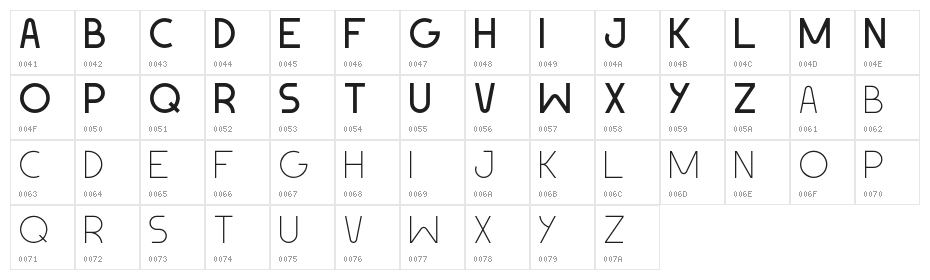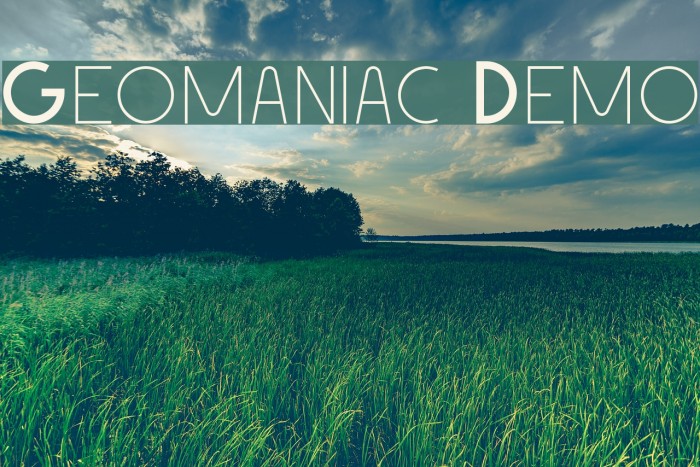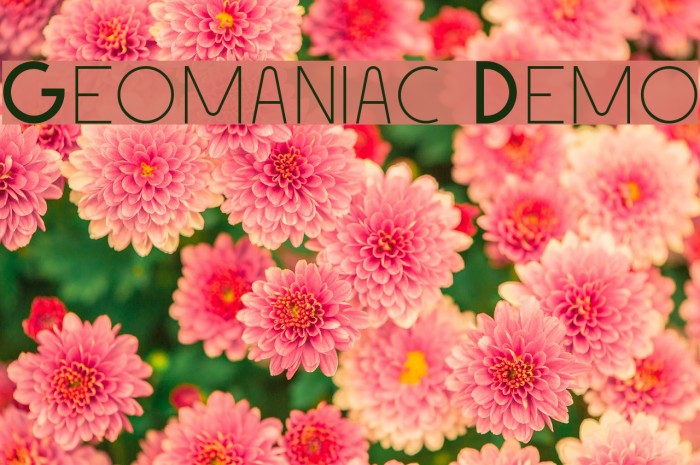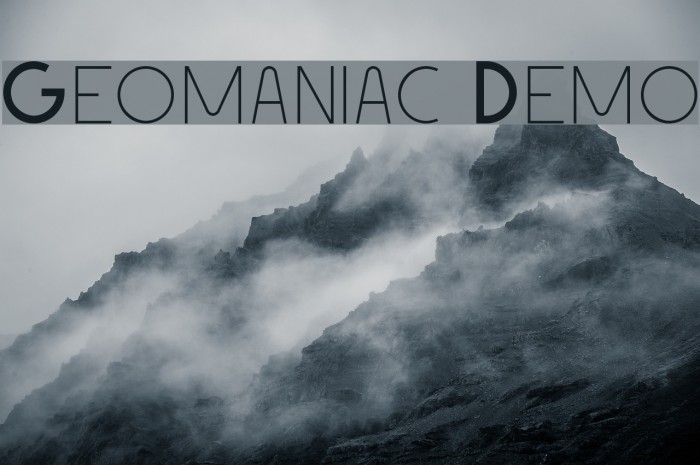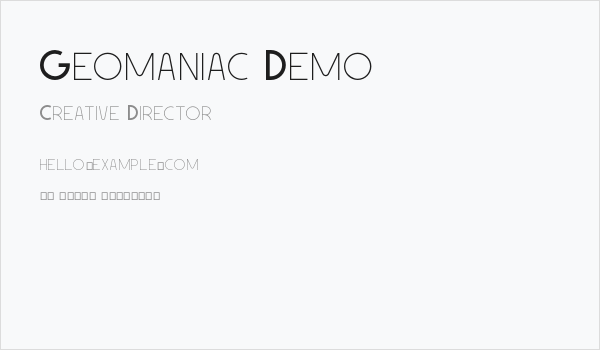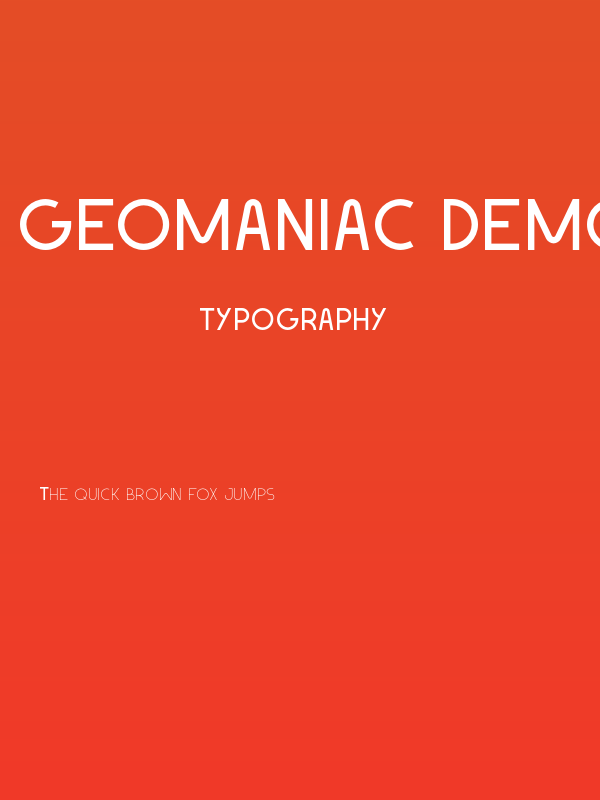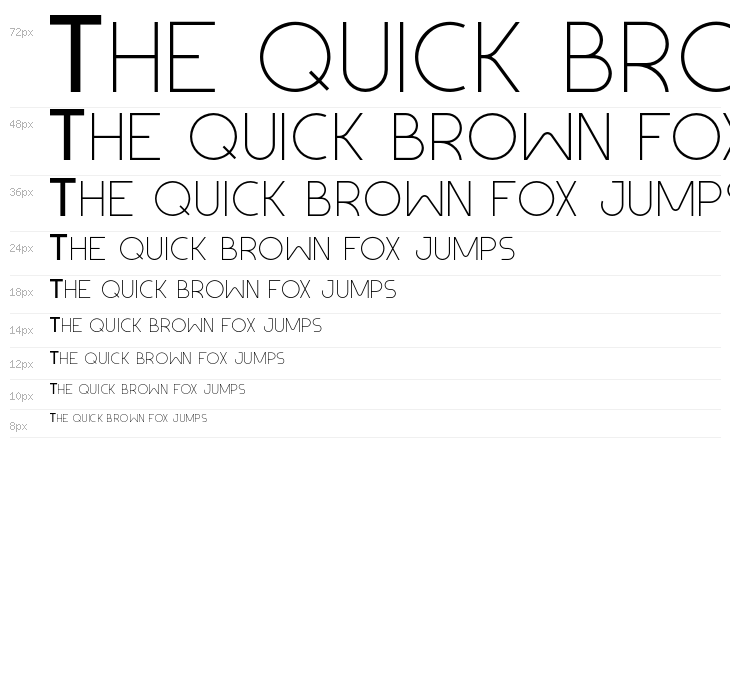
Geomaniac Demo Font
Geomaniac Demo Description
This font features a geometric and modern design, characterized by clean lines and a minimalist aesthetic. The uppercase letters are bold and striking, with a uniform stroke width that gives them a strong presence. The lowercase letters maintain the geometric theme, offering a harmonious balance between the characters. The numbers are consistent with the overall style, ensuring readability and a cohesive look. The special characters are designed to match the font's geometric nature, making them suitable for various design applications. This font is ideal for projects that require a contemporary and sleek appearance.
| Proposed Projects | Ideal for branding, logos, headlines, and modern web design. |